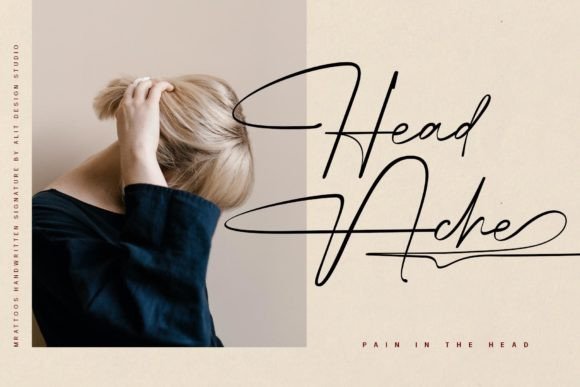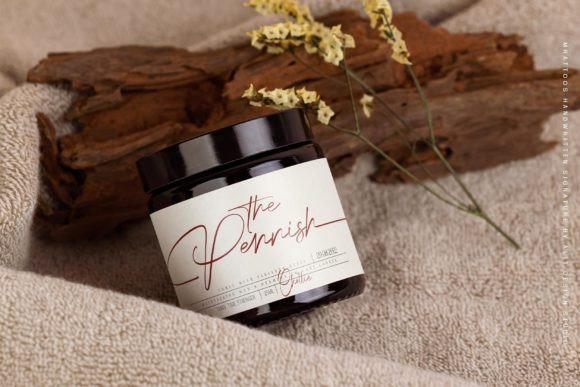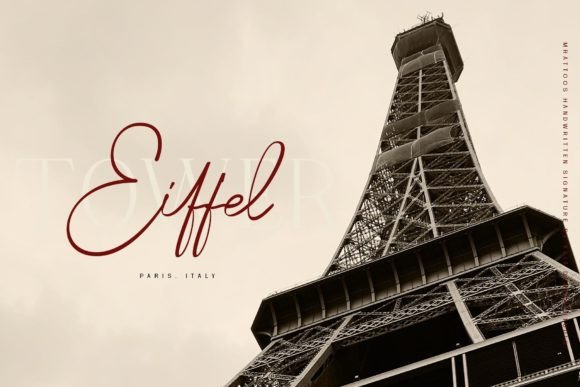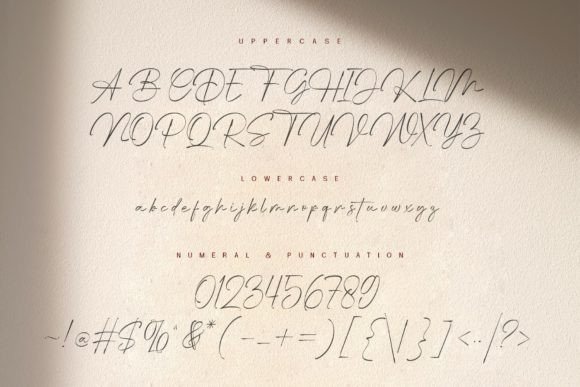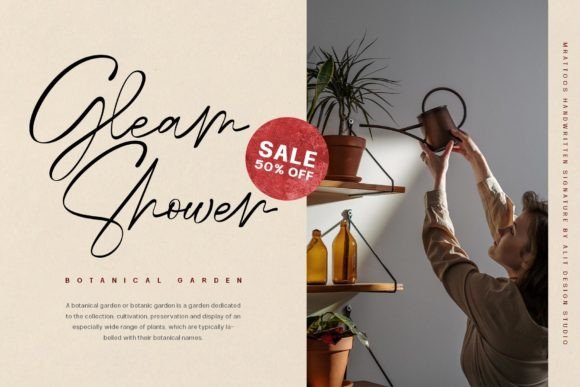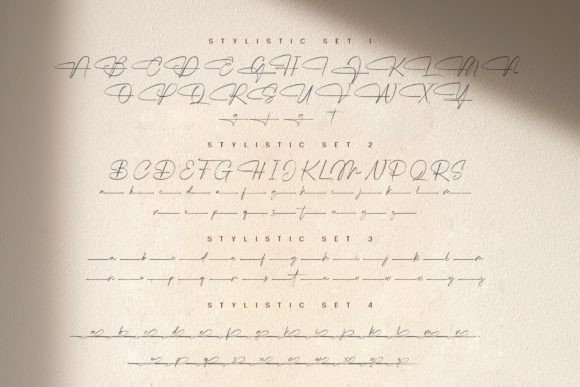
Introduction to Mrattoos Font
As a designer, you’ve probably experienced that moment of pure creative joy when a new font sparks an idea and sets your imagination on fire. It’s like stumbling upon a hidden treasure trove of inspiration, and you can’t wait to bring your vision to life. For those who crave that special something to elevate their designs, we’re excited to introduce the Mrattoos Font – a beautiful, light handwritten script font that adds a touch of luxury and sophistication to any creative project.
Whether you’re working on a high-end branding project, a wedding invitation, or a social media campaign, Mrattoos Font is the perfect design resource to take your work to the next level. With its stunning impact and unique feel, this font is sure to make your designs stand out from the crowd. And the best part? It’s PUA encoded, making it easy to access all the amazing glyphs and ligatures for a seamless design experience.
Key Features of Mrattoos Font
- Unique, hand-drawn design for a creative project or design resource.
- Includes a range of characters, including uppercase and lowercase letters, numbers, and punctuation.
- Designed to be versatile and stylish, making it a great addition to any design project.
Honest Review: Mrattoos Font
As a designer, I’m always on the lookout for unique and high-quality design resources. Recently, I stumbled upon the Mrattoos Font, and I must say, it’s a game-changer for any creative project.
What works well: ✨ The font is incredibly versatile and can be used for a wide range of design projects, from logos to typography. The Mrattoos Font also comes with a transparent background, making it easy to customize and integrate into any design. Additionally, the free download option is a major plus, as it allows designers to experiment with the font without committing to a purchase.
- High-quality design suitable for logos and typography
Overall, I’m impressed with the Mrattoos Font, and I would highly recommend it to designers looking for a unique and high-quality design resource. With its versatility, transparency, and free download option, it’s an excellent addition to any design arsenal.
Tips for Getting the Most Out of Mrattoos Font
Use the font in combination with other design resources to create a cohesive and high-quality design.
Experiment with different font sizes and styles to achieve the desired effect.
Take advantage of the font’s transparent background to create visually appealing designs.
Use the Mrattoos Font in a variety of creative projects, including:
Branding and logo design
Infographics and data visualizations
Print and digital marketing materials
Web design and development
Compared to Mrattoos Font, Great Vibes Font has a more relaxed and casual tone, while Mrattoos Font has a more edgy and bold feel.